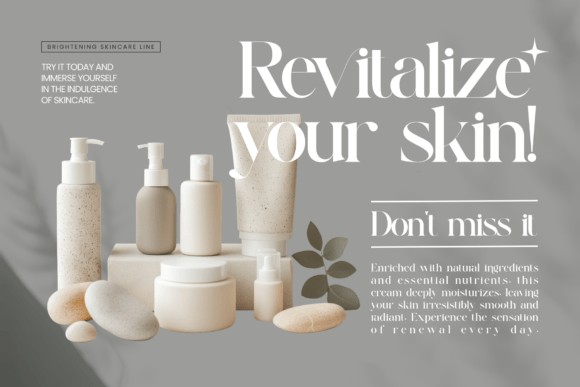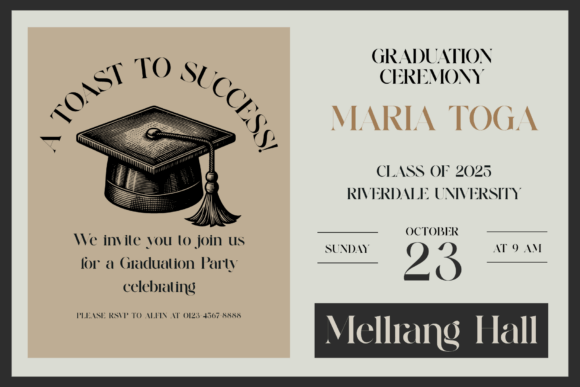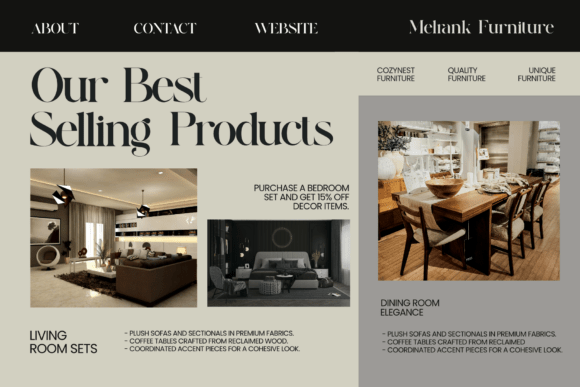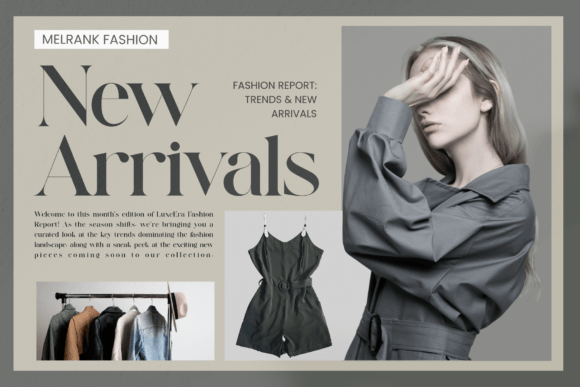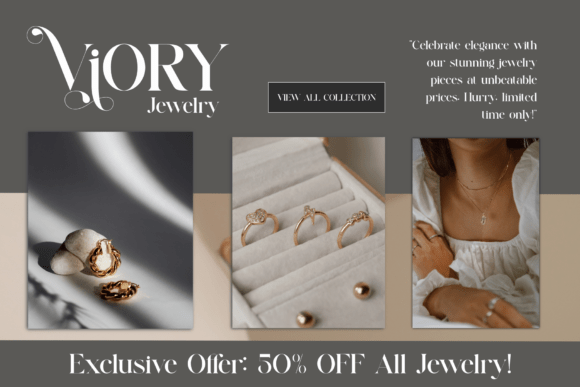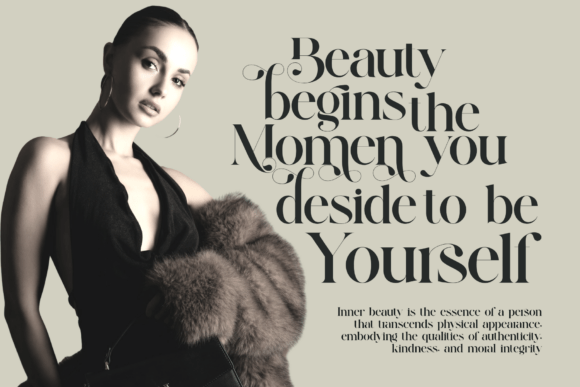
Introduction to Melrank Font
As a designer, have you ever stumbled upon that perfect font that makes your creative project come alive? The moment when all the elements fall into place, and your design takes on a life of its own. For many of us, that moment is what drives us to keep pushing the boundaries of our craft. And for those who appreciate the beauty of elegant typography, the Melrank Font is sure to be a game-changer.
With its refined ligatures and soft, graceful presence, Melrank Font is the perfect addition to any high-quality design. Whether you’re working on a fashion brand, a floral-inspired project, or an upscale website, this modern serif font is sure to elevate your work and leave a lasting impression.
Key Features of Melrank Font
- High-quality font with a unique, modern design perfect for creative projects.
- Includes multiple font weights and styles, allowing for a high degree of customization and flexibility.
- Perfect for use in logos, branding materials, and other design elements where a modern, sleek look is desired.
Honest Review: Melrank Font
As a designer, I’m always on the lookout for high-quality design resources to enhance my creative projects. Recently, I stumbled upon the Melrank Font, which promised to deliver a unique and stylish typography experience.
Here’s my honest review of this font:
- The Melrank Font is a beautiful, high-quality font that’s perfect for creative projects that require a touch of elegance.
- The font is not as versatile as some other popular fonts, which may limit its use in certain projects.
- The design is quite stylized, which may not appeal to designers who prefer a more neutral or classic look.
Overall, I think the Melrank Font is a great addition to any designer’s toolkit. While it may have some limitations, its unique style and high-quality design make it a valuable resource for creative projects.
Tips for Getting the Most Out of Melrank Font
Experiment with different font sizes and styles to create visual interest. Combine Melrank Font with other design elements, such as images or graphics, to create a cohesive design.
Melrank Font is suitable for a wide range of design projects, including business cards, posters, social media graphics, and presentations. Its transparent background and high-quality design make it an excellent choice for designers and non-designers alike.
Does the Melrank Font have a transparent background?
No, the Melrank Font does not have a transparent background. However, you can use it with a transparent background image or design element to create a unique and creative visual effect. The font itself has a high-quality design with a clean and modern look that’s perfect for a variety of design projects.